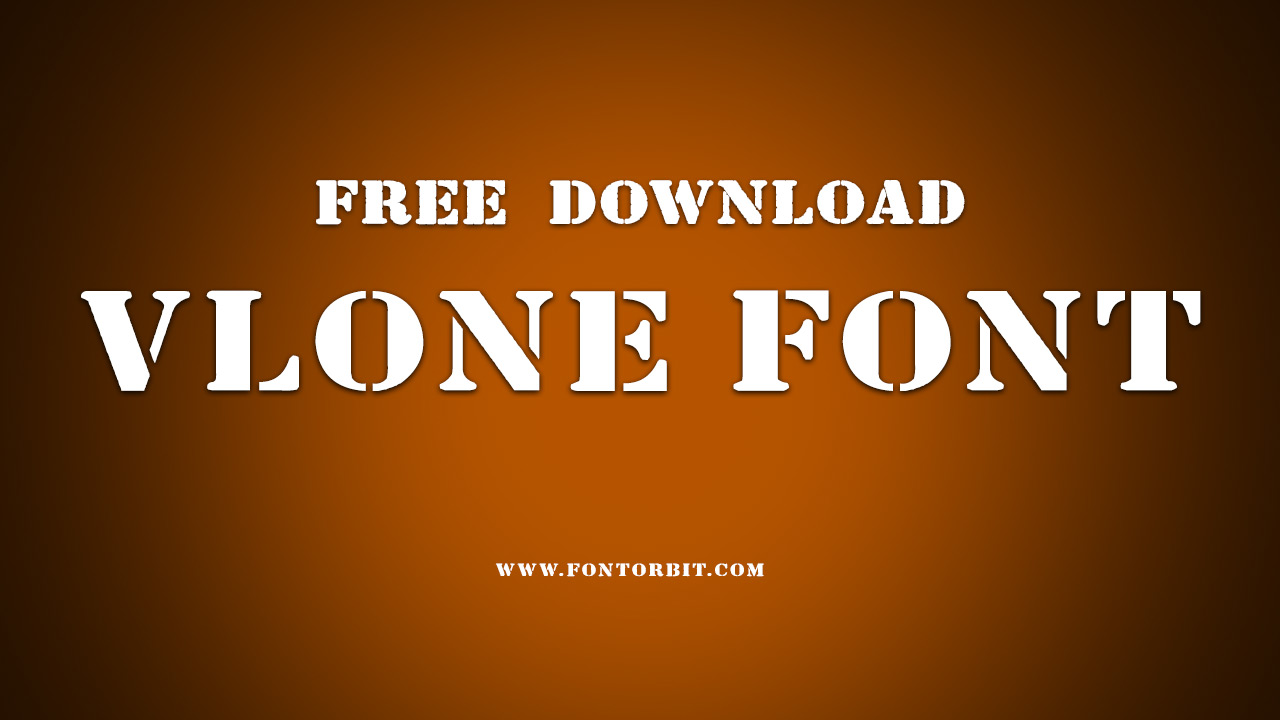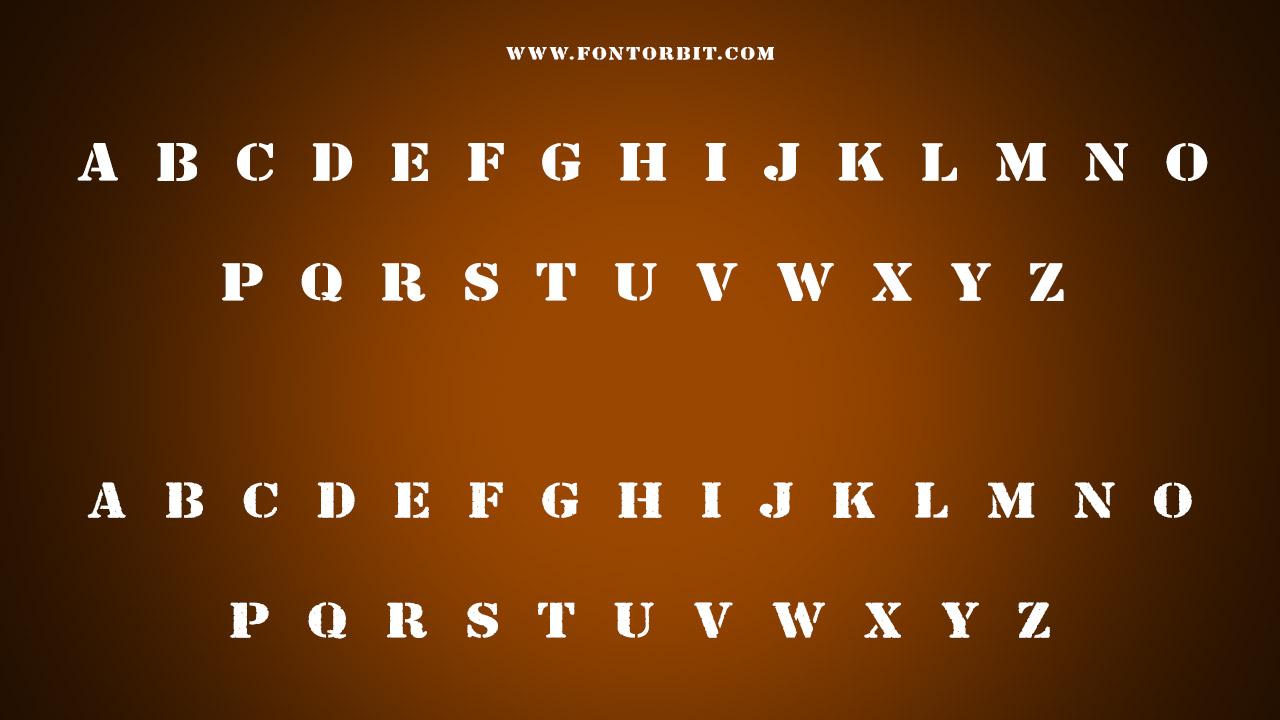
Vlone Font is a fancy, street-style typeface designed by Jabari Shelton. Known for its clean and bold texture, Vlone Font has significantly impacted the fashion and branding industry, especially through its association with the Vlone brand logo (Bundy Yellow Font).
Vlone Font features a bold and striking aesthetic that is perfect for making a statement in your designs. This font stands out with its clean texture, offering clarity and style for a range of projects. The Vlone logo Font family includes:
a. Bundy-Yellow-Font
b. Bundy-Yellow-Hollow-Shadowed
Vlone Font’s bold and clean texture and street fashion aesthetic make it an excellent choice for various eye-catching and urban-inspired designs. Its bold presence adds a dynamic flair to any project, particularly in fashion and branding. Its versatility and strong character make it ideal for:
Vlone Font has gained popularity for its association with street culture and fashion branding. Its free availability for personal use makes it accessible for a wide range of creative projects. Pair it with minimalistic or contrasting fonts to maximize its impact on your designs.
1.Is Vlone Font Suitable For Headings Or Body Text?
Due to its bold and striking design, Vlone Font is best suited for headings and display text. However, it may be too overpowering for body text, which requires more subtlety and legibility.
2.What Is The Difference Between Vlone Font And Other Fancy Or Street Fonts?
Vlone Font stands out with its clean texture and bold, street-style aesthetic. While many fancy fonts focus on decorative elements, Vlone Font balances simplicity and boldness, making it perfect for modern, urban designs.
3.What Are The Popular Uses Of Vlone Font?
Vlone Font is popular for logo design, posters, apparel, branding, and flyers, particularly in fashion and street culture industries where a bold and modern aesthetic is desired.
4.What Are The Design Principles Behind Vlone Font?
The design principles behind Vlone Font focus on boldness, legibility, and modern street fashion aesthetics. It is crafted to deliver a strong visual impact while maintaining a clean and stylish look.
5.What Is The Color Palette Typically Used With Vlone Font?
Vlone Font does not come with a specific color palette. However, it pairs well with dark, bold colors like black, deep red, or navy blue. It also contrasts nicely with neon accents or muted backgrounds.